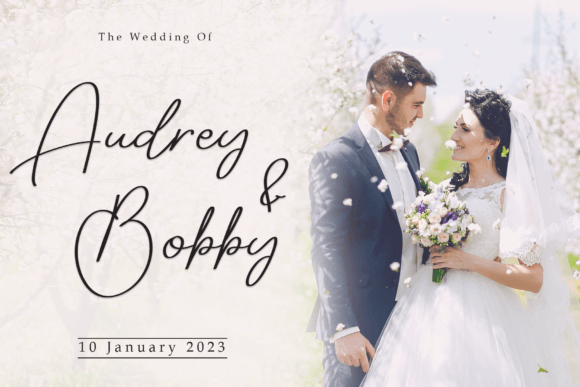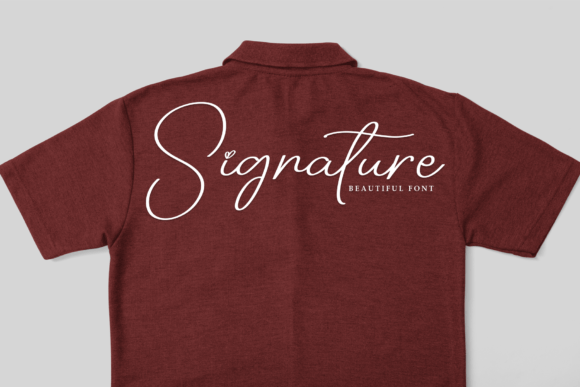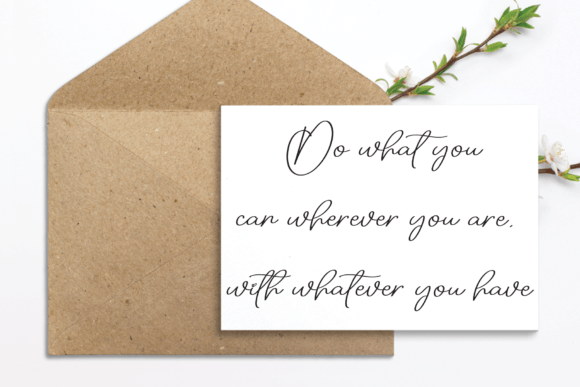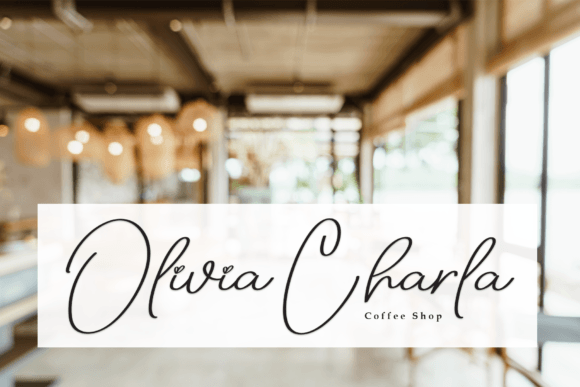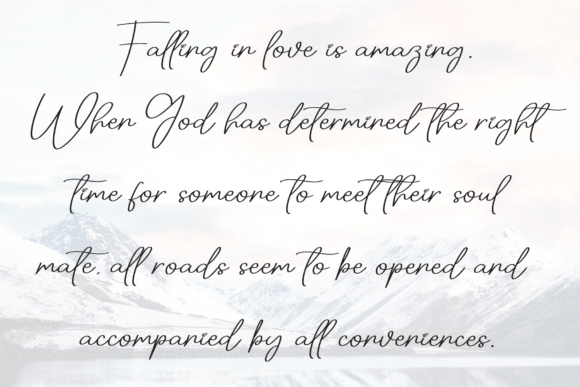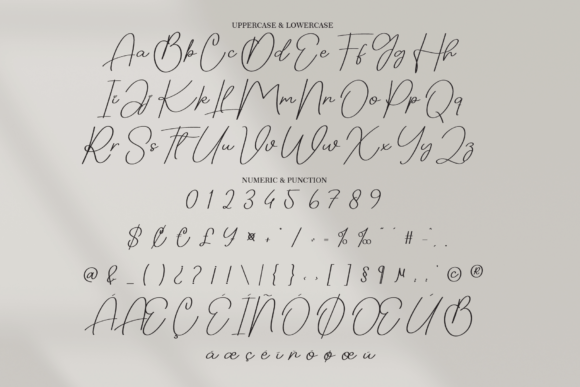
Have you ever found yourself staring at a blank page, trying to decide on the perfect font to bring your creative vision to life? It’s a moment we’ve all been there – the one where everything seems to be at stake, and the right font could make or break the entire project. That’s where Destination Font comes in, a game-changing collection of stylish letters designed to elevate your work and leave a lasting impression.
Destination Font is more than just a font – it’s a key to unlocking your full creative potential. With its versatility and sophistication, this font is perfect for wall displays, wedding invitations, social media post logos, advertisements, and any project that requires a touch of elegance and refinement. Whether you’re a seasoned designer or just starting out, Destination Font is an invaluable tool that’s sure to take your work to the next level.
- High-Quality Typography: Designed with precision, Destination Font offers a range of styles and weights, from Light to Extra Bold, with a minimum of 300 PPI (Pixels Per Inch) resolution for crisp and clear text rendering.
- Optimized for Digital Use: The font is specifically crafted for on-screen reading, taking into account the unique characteristics of digital displays, such as pixel density and color gamut.
- Extensive Language Support: Destination Font includes a wide range of languages, including Latin, Cyrillic, Greek, and many non-Latin scripts, making it a versatile choice for global applications.
- Scalable and Versatile: The font can be scaled up or down without losing its clarity, making it ideal for use in various contexts, from body text to headlines and titles.
- Future-Proof Design: Destination Font is designed with future-proofing in mind, with a focus on adaptability and flexibility to ensure it remains relevant and effective in an ever-changing digital landscape.
As a designer, I was excited to dive into Destination Font and see what it had to offer. Here’s my honest review:
- Unique Character Set: Destination Font boasts a wide range of characters, including many international symbols and icons.
- Customizable: The font is highly customizable, with options for adjusting font weights, sizes, and styles.
- Easy to Read: Despite its ornate design, Destination Font is surprisingly easy to read, making it a great choice for body text.
- Compatibility Issues: I experienced some compatibility issues with older browsers and devices, which may be a concern for some users.
- Limited Kerning: While the font is customizable, the kerning (spacing between letters) can be a bit wonky in certain situations.
- Overly Ornate: While the font’s unique design is a major selling point, it can also make it feel overly ornate and busy in certain contexts.
Overall, I think Destination Font is a solid choice for designers looking to add some visual interest to their projects. While it may have some limitations, its unique character set and customizable design make it a great option for the right project. Just be sure to test it thoroughly across different browsers and devices to ensure compatibility.
To get the most out of Destination Font, try experimenting with different font sizes, colors, and styles to create unique and eye-catching designs.
Use Destination Font to create a consistent brand identity across all your designs.
Destination Font is perfect for:
1. Creating eye-catching headlines and titles.
2. Adding a touch of elegance to your designs.
3. Creating a consistent brand identity across all your designs.